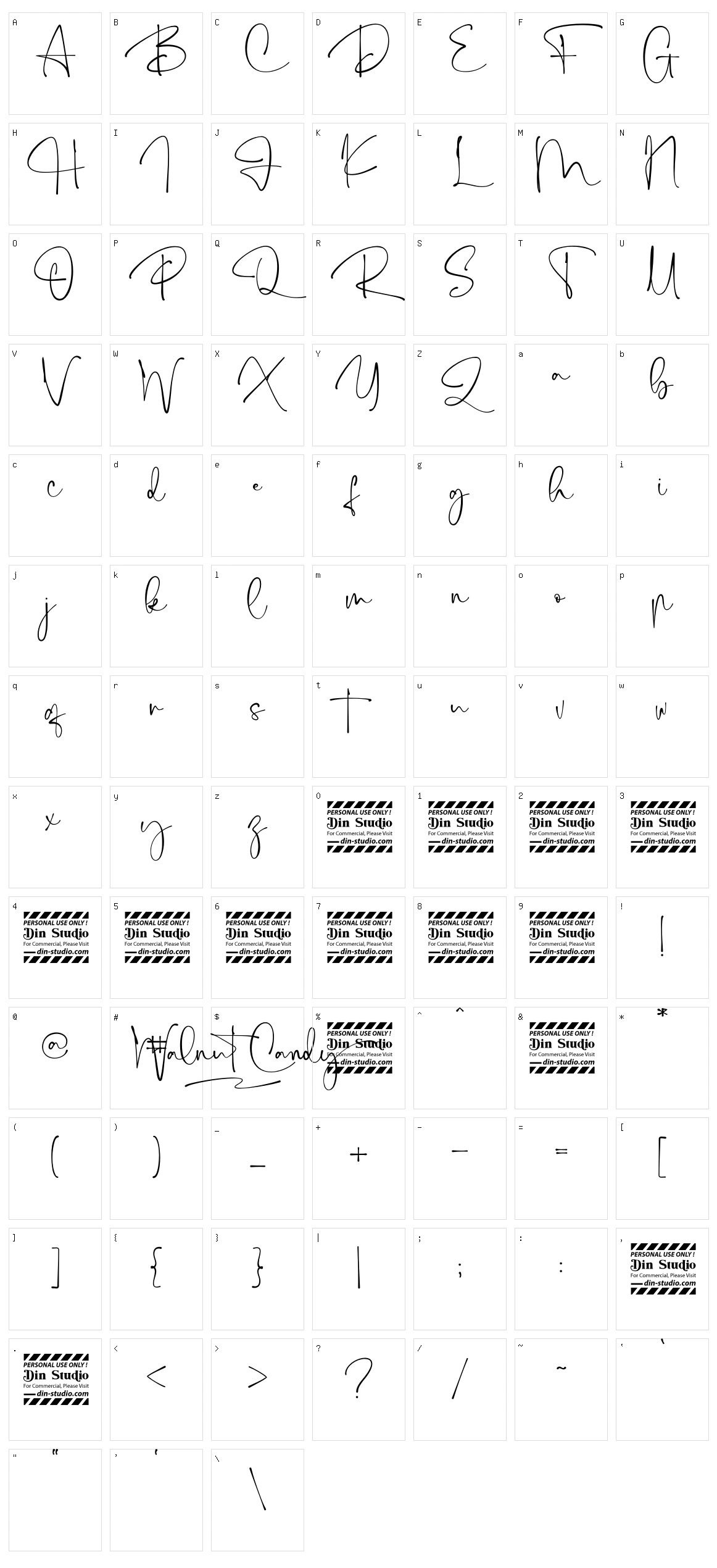
The free font Walnut Candy is carefully designed by Din Studio, showcasing a thoughtful balance of creativity and usability and falls under the Script font style. When you download the ZIP file, it contains only 315.49 KB of font files, making it lightweight and quick to download. Please review the license details below to understand permitted usage and distribution rights. If license information is not available, we recommend using this font for personal projects only or contacting the author directly for commercial usage permissions.